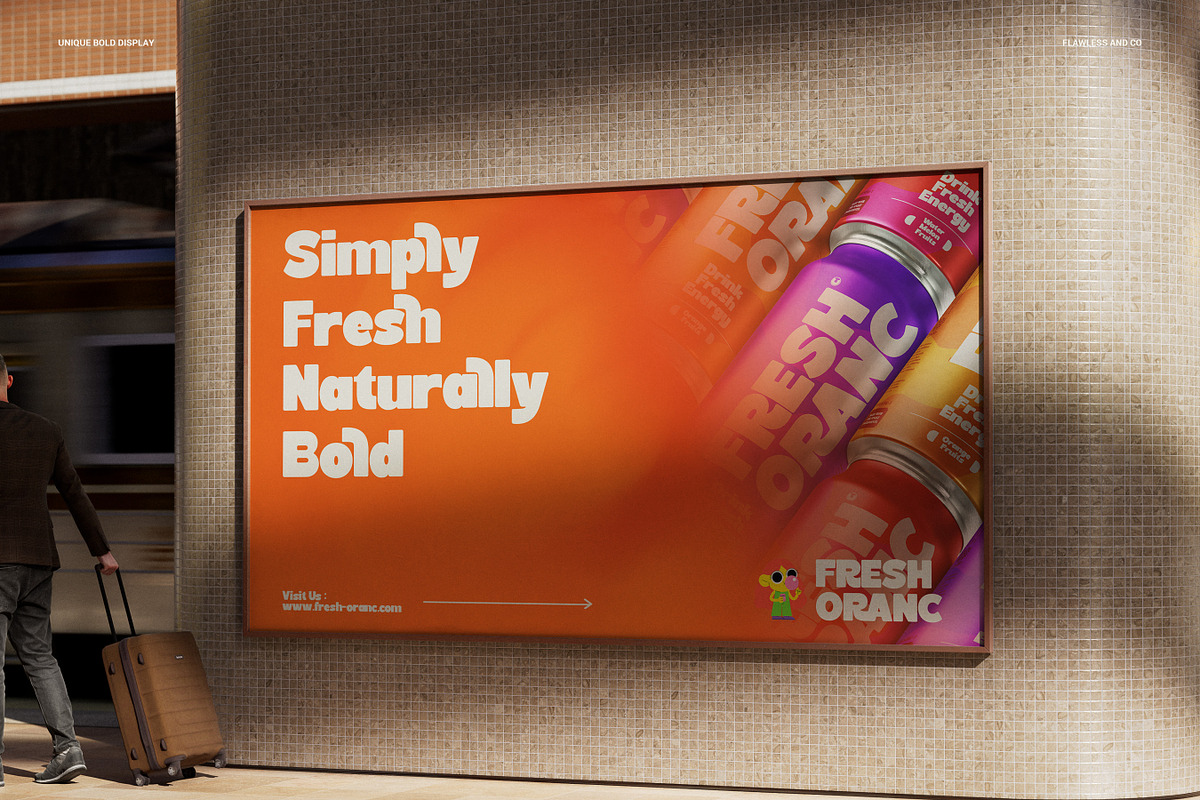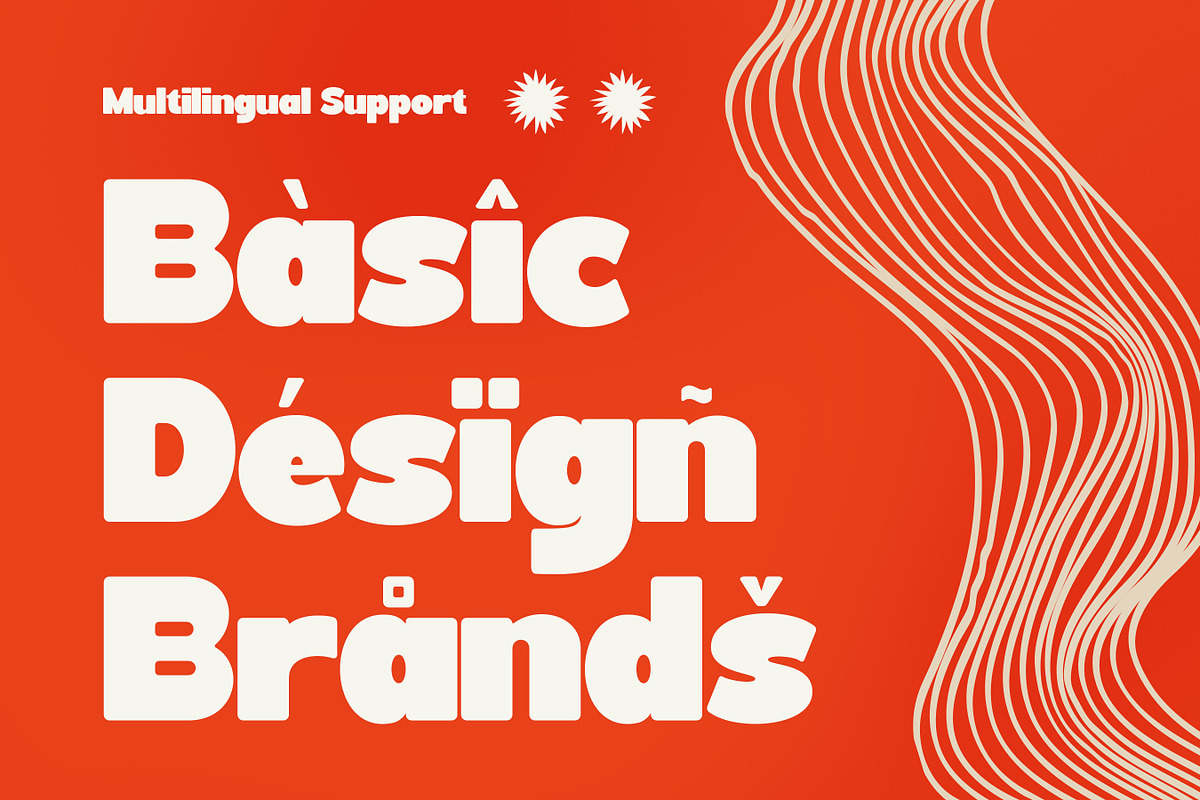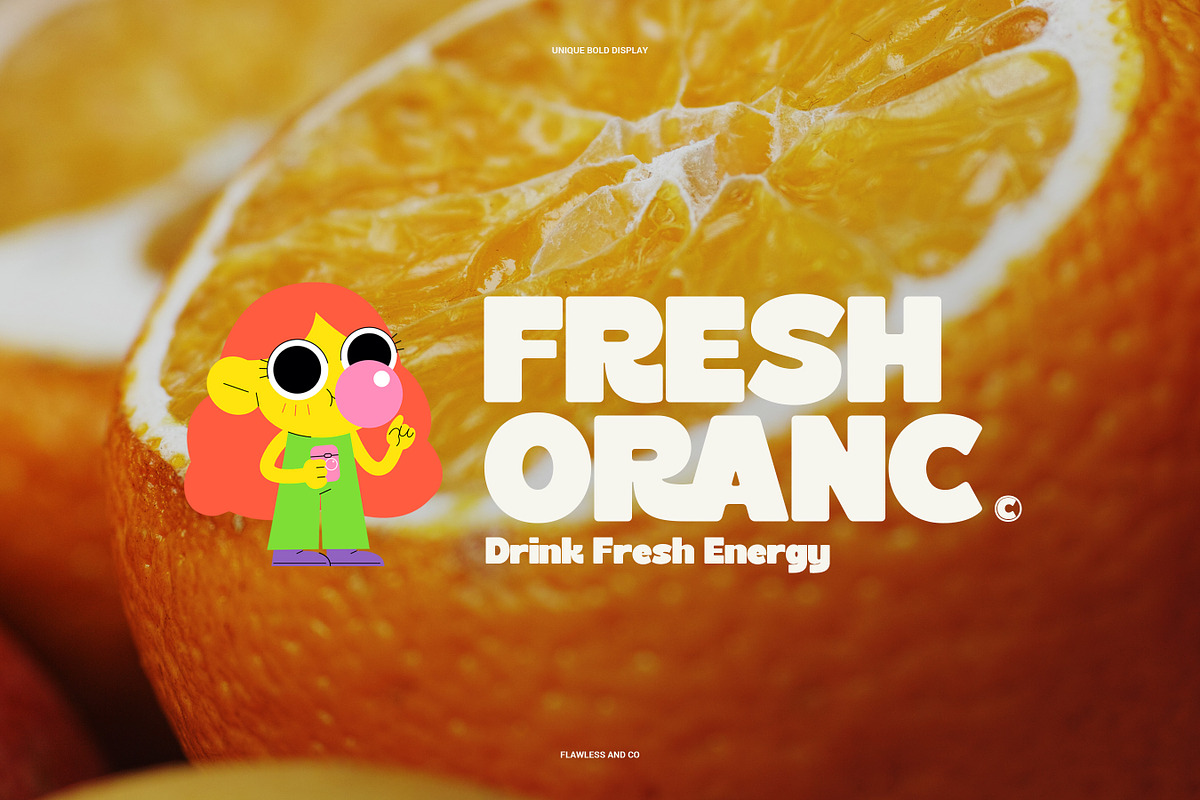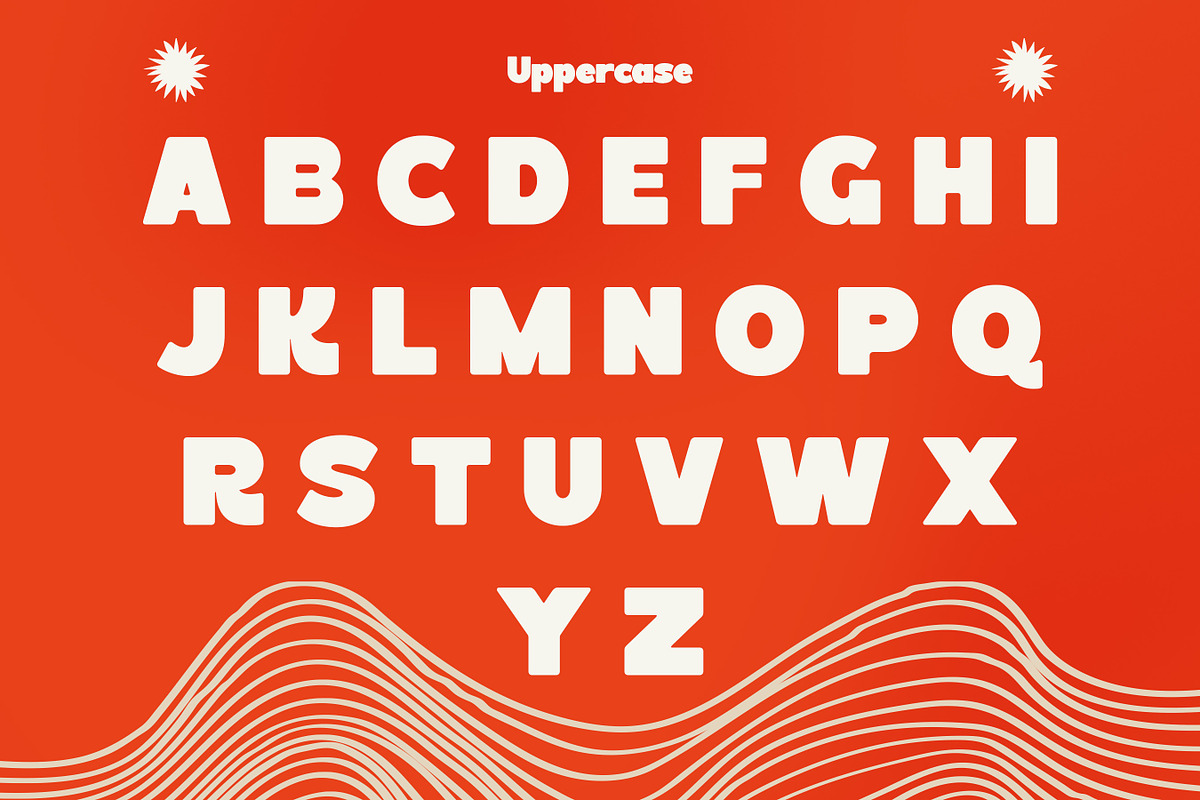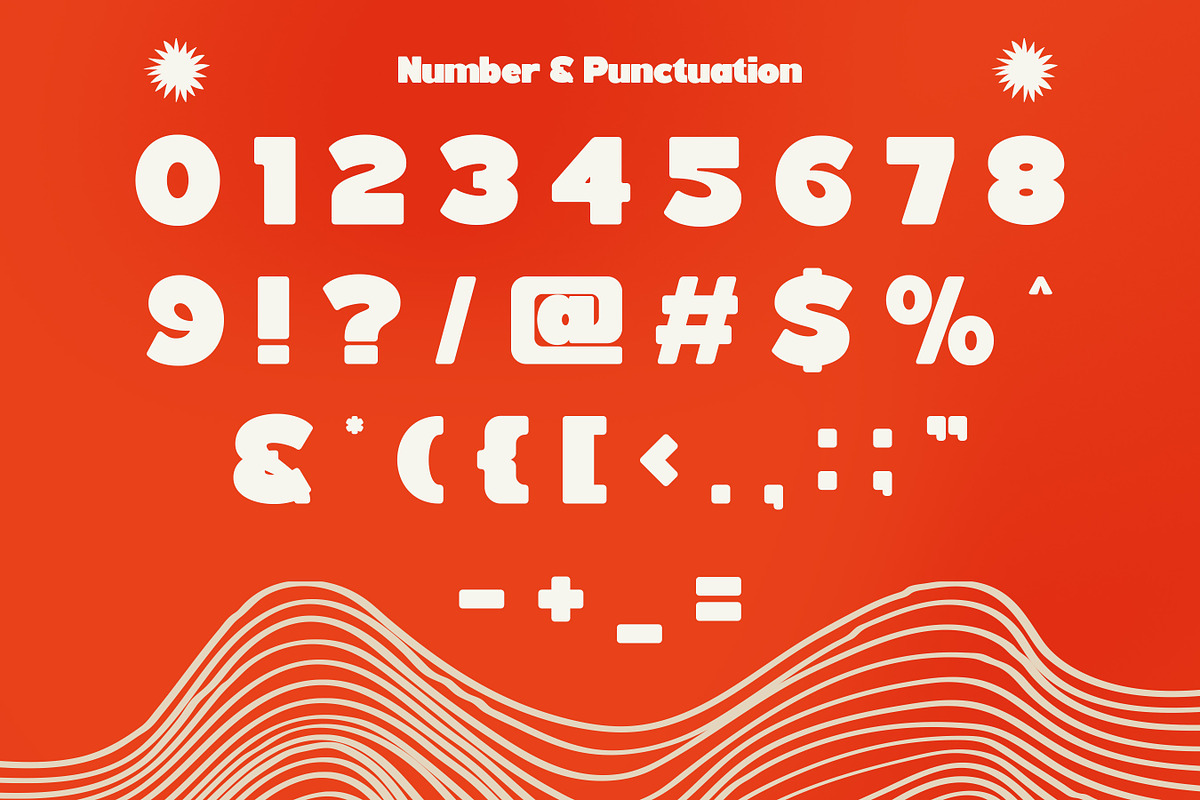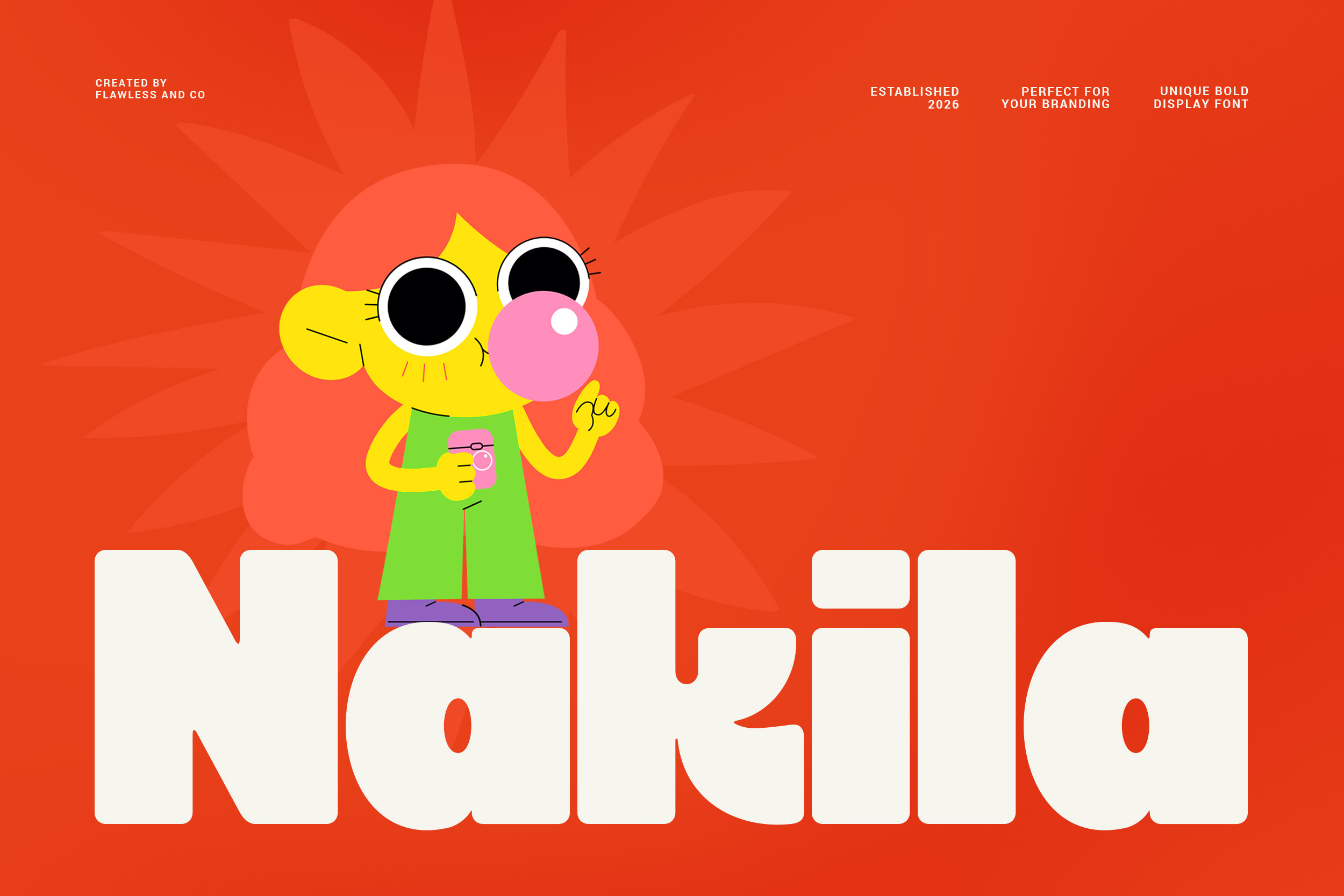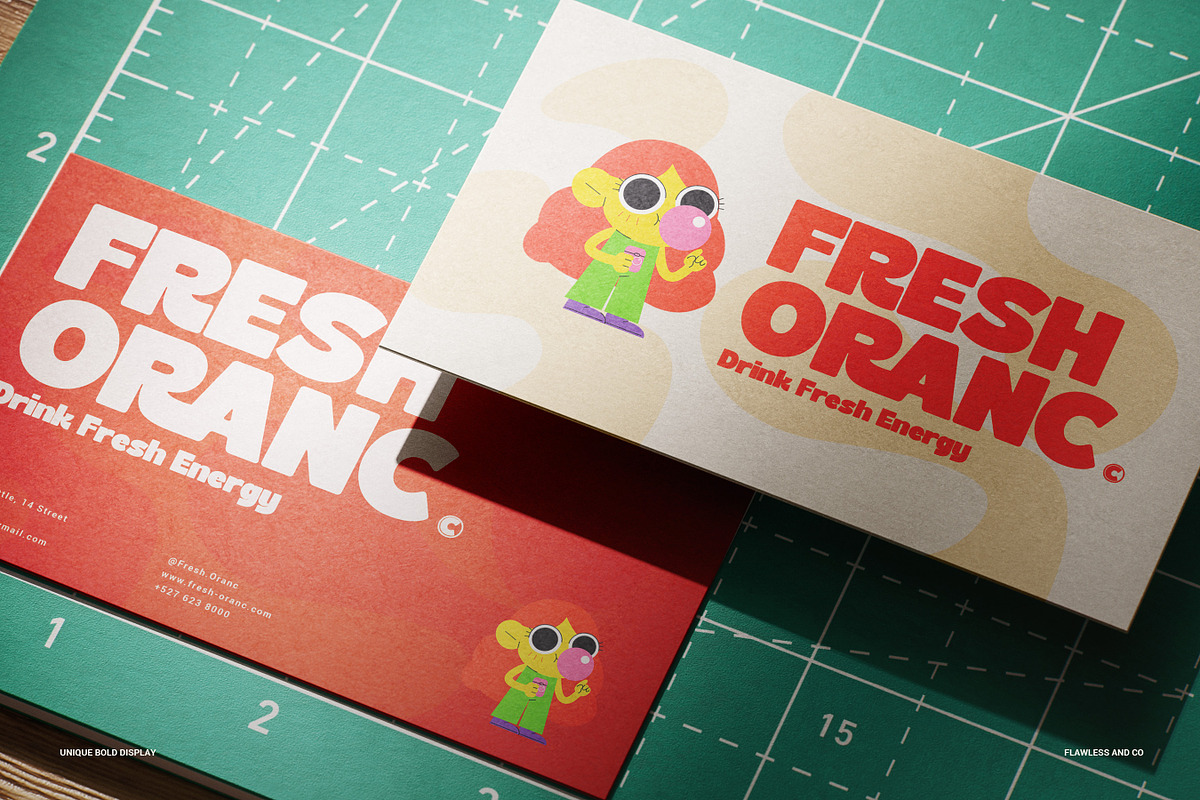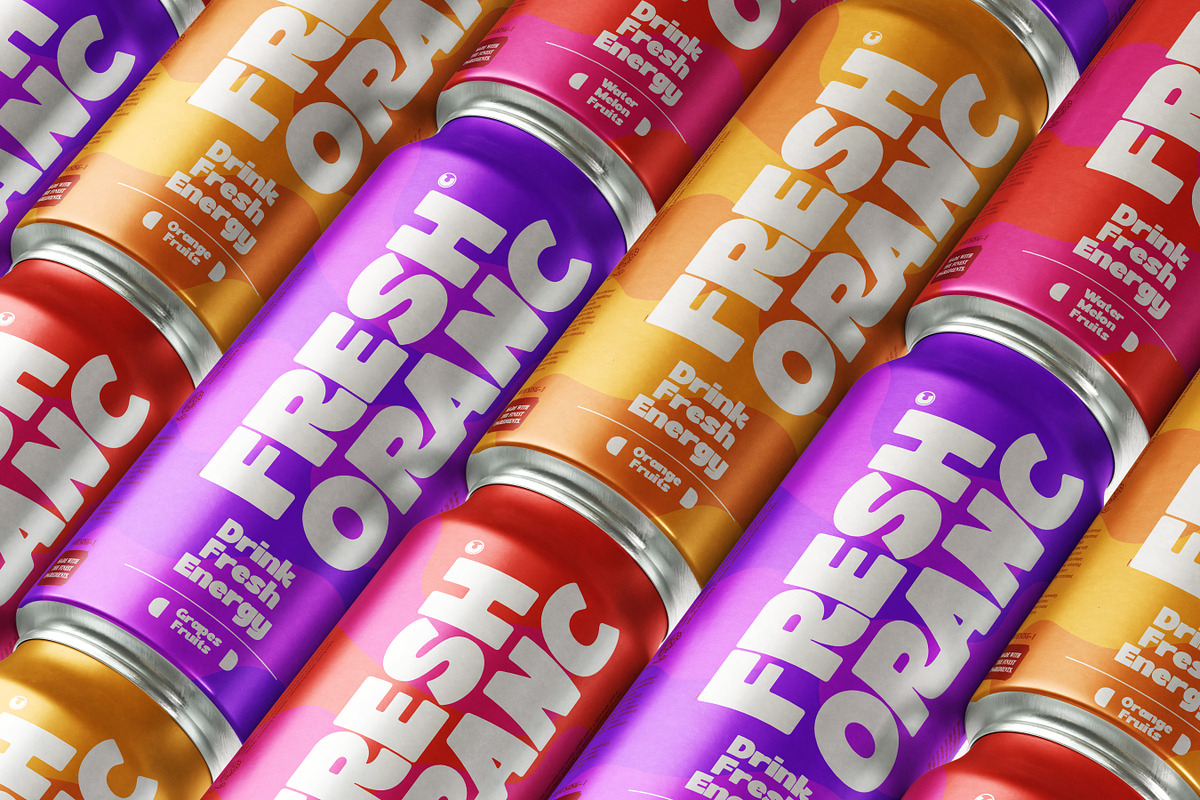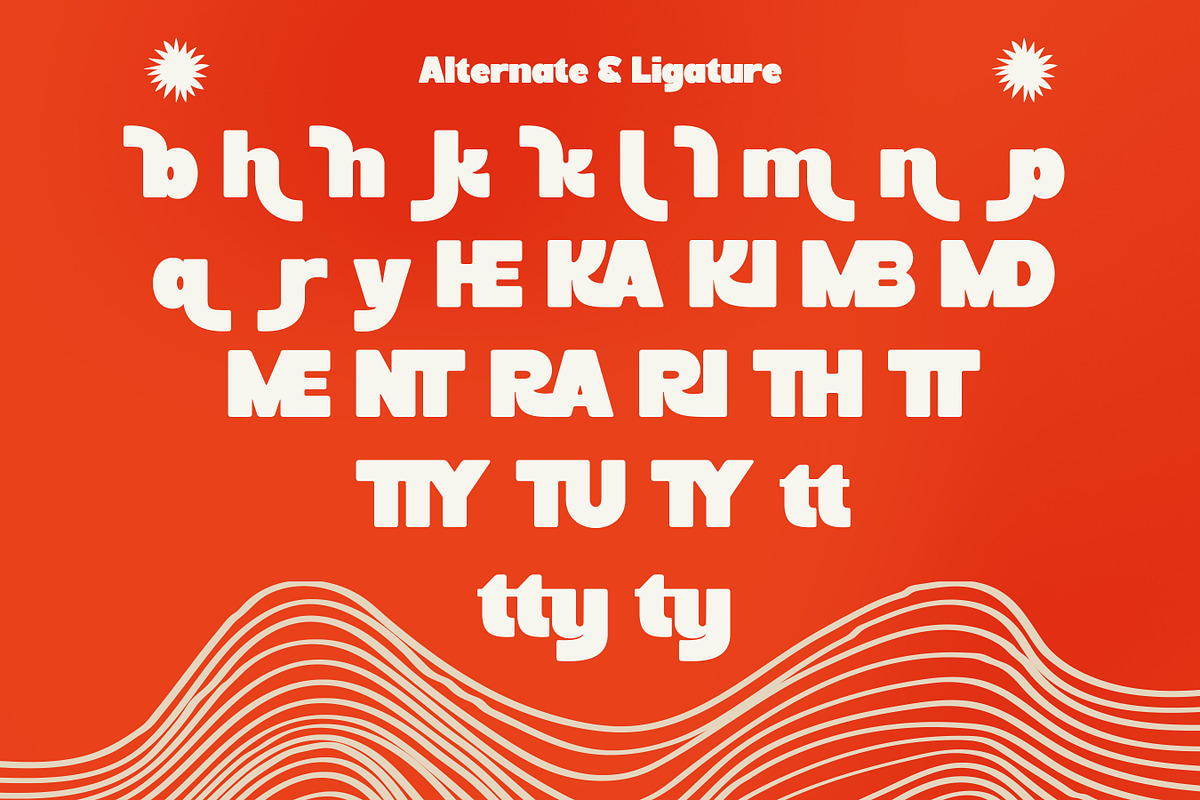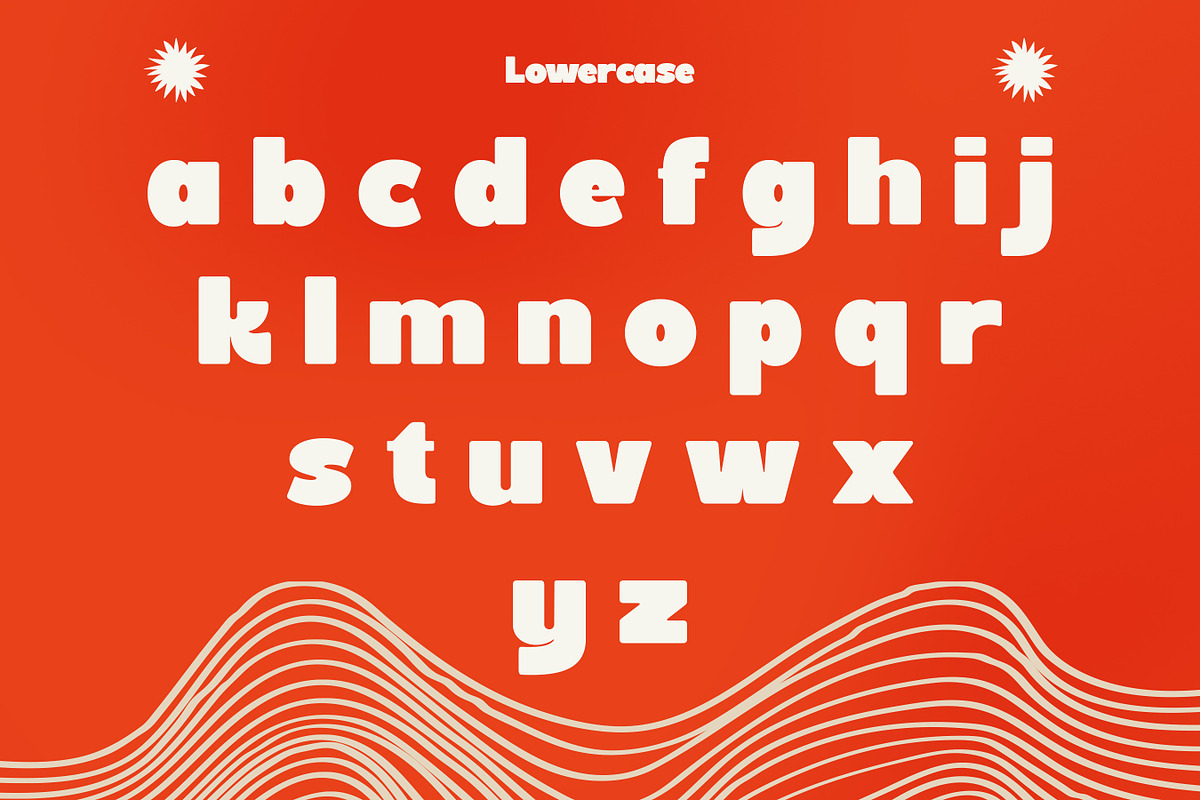
Nakila - Bold Unique Display Font
Nakila is a bold and unique display font crafted to create a strong visual statement with a distinctive personality. Featuring thick strokes, unconventional shapes, and eye-catching letterforms, Nakila is designed to stand out and capture attention instantly. Its creative and expressive style makes it perfect for designs that need to feel modern, artistic, and full of character while still maintaining good readability.
Who Should Use Nakila?
Nakila is perfect for designers and creatives who want to push boundaries and create bold, standout visuals. It’s especially ideal for projects that require a unique identity and a strong typographic presence.
Suitable For:
- Creative and bold branding
- Unique logo design
- Posters and promotional materials
- Packaging and product design
- Social media graphics
- Headline and display typography
- Artistic and experimental projects
- Modern and expressive visual designs